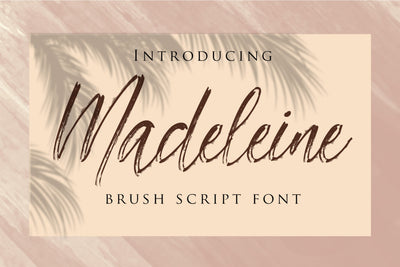
Madeleine - Brush Script Font
Madeleine is a versatile handwritten brush script font. Comes in 2 style, regular and slant version.
Best choice for modern yet stylish design, for magazine, web header, company name, name card, quotes, and some artistic designs.
- Comes in 2 style, regular and slant.